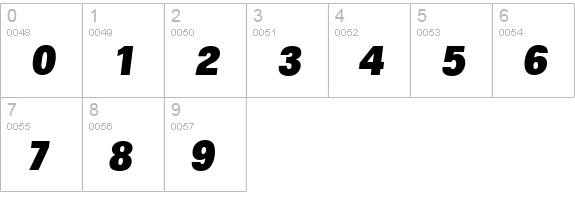
FormulaSerial-Heavy-Italic is a heavy, high-impact, italic variant in the FormulaSerial typeface family \xE2\x80\x94 well suited to high-impact headlines, posters, and display advertising.
Introducing FormulaSerial-Heavy-Italic font, a sleek and modern typeface designed to make a bold statement. With its heavy weight and stylish italicized design, this font exudes confidence and sophistication. Perfect for adding a touch of elegance to your projects, whether it be for branding, advertising, or any creative endeavor. And the best part? FormulaSerial-Heavy-Italic font is completely free to download at FontsMarket.com. Don't miss out on this opportunity to enhance your design arsenal with this striking and versatile typeface. Download it today and elevate your typography game to the next level!